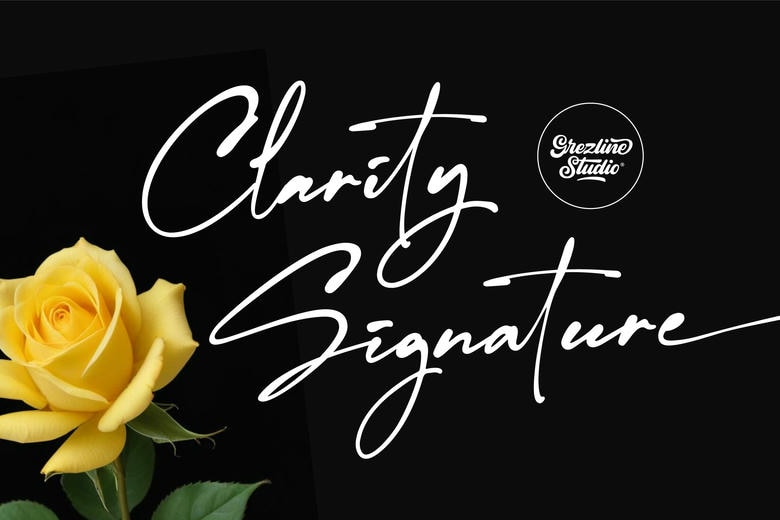
Clarity Signature Font
Clarity Signature typeface is the handwriting signature font that has a carefree sleekness to it and can give a bit of aesthetic to your brand, designs and creative works. Whatever visual you are creating to make people feel exquisitely invited, whether a special pair of jeans, or highly elevated logo, this font adds style and charm that real pen has when it meets the paper–but without the smears.
Clarity Signature Script Font